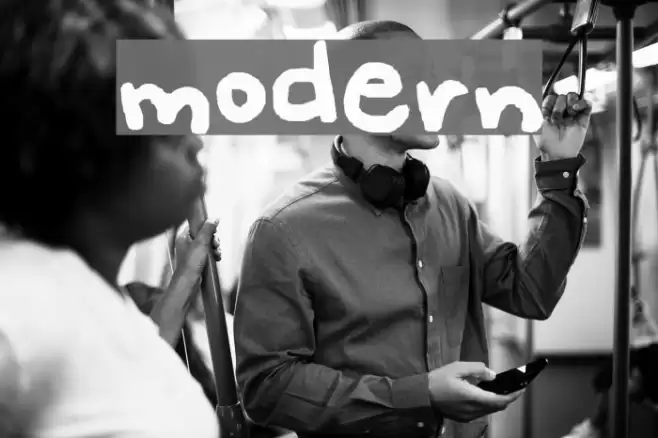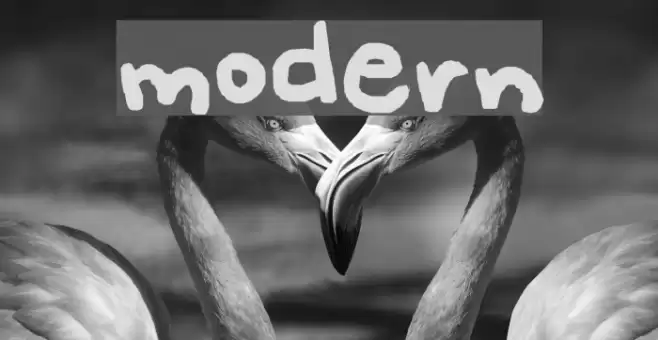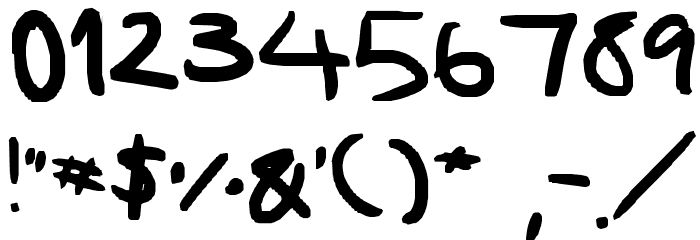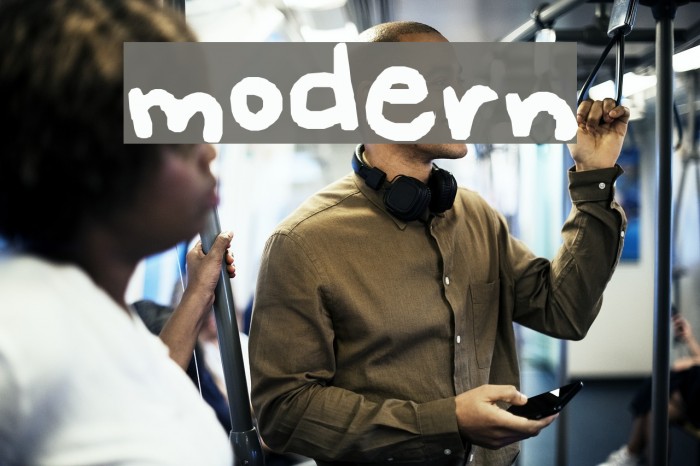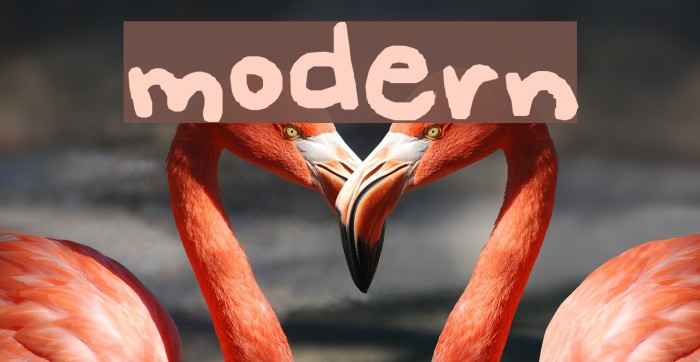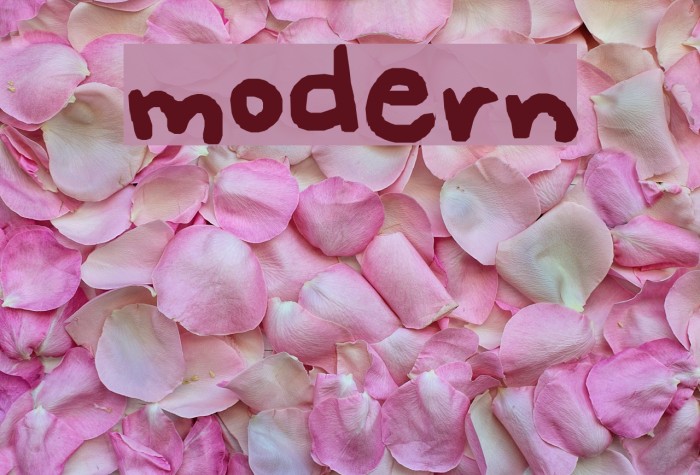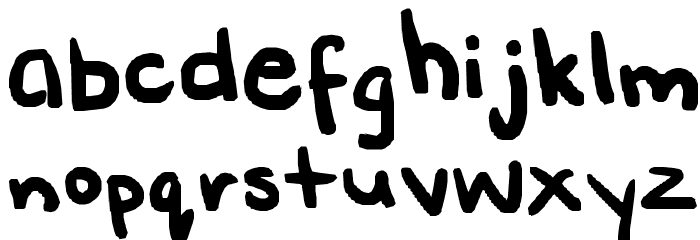
modern Font
modern Description
This font exudes a playful and casual handwritten style, characterized by its bold and slightly irregular strokes. The letters have a natural flow, mimicking the spontaneity of handwriting with a touch of whimsy. Each character is distinct, with rounded edges and a consistent thickness that provides a cohesive look across the alphabet. The numbers and special characters maintain this informal aesthetic, making the font suitable for projects that require a personal touch. Its legibility is enhanced by the clear separation between characters, despite the playful nature of the design.
A bold, playful handwritten font with a casual and whimsical style.
- Proposed Projects: Ideal for greeting cards, children's books, casual branding, and social media graphics.
- Category: Handwritten
- Overall Style: Casual
- Use Case: Headlines, Informal text, Creative projects